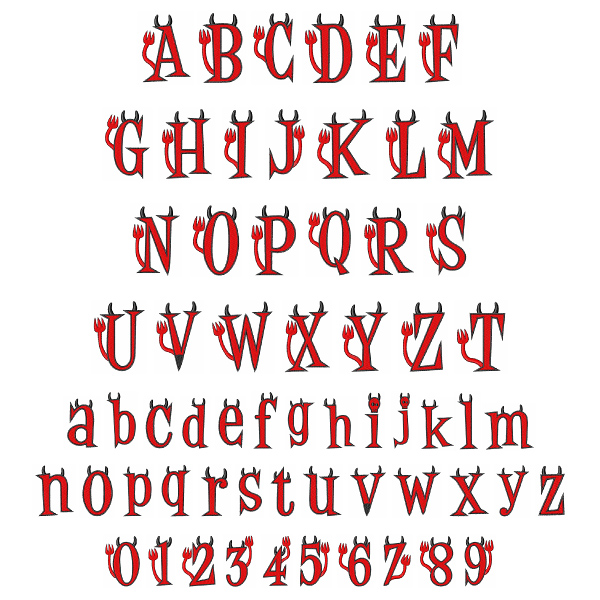
Bloody red retro gothic text, satan devil font typeface for hell movie. Free fonts often have not all characters. Devil font, demon typeface letters.
Web Devil Font Alphabet, Horror Type.
Devil Font, Demon Typeface Alphabet Or Horror Typography, Vector Evil Letters.
This is a most amazing and cool free horror style font for your projects related to halloween. Web there are many really beautiful evil fonts available for you which you can directly use on any platform in the world for free. The additional elements of devil’s tails, like letters, make an ambiance of horror invitations, postcards, posters, and headings for a halloween.